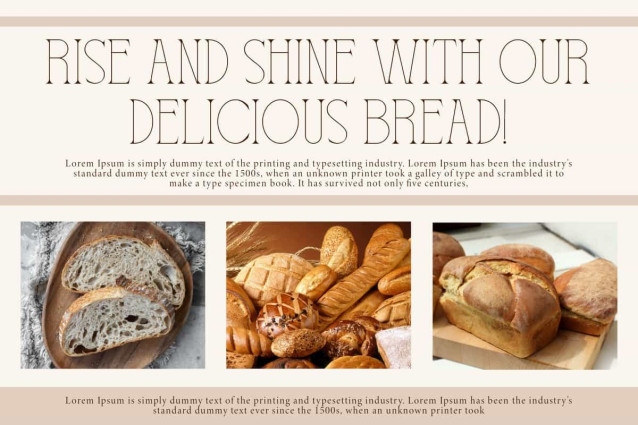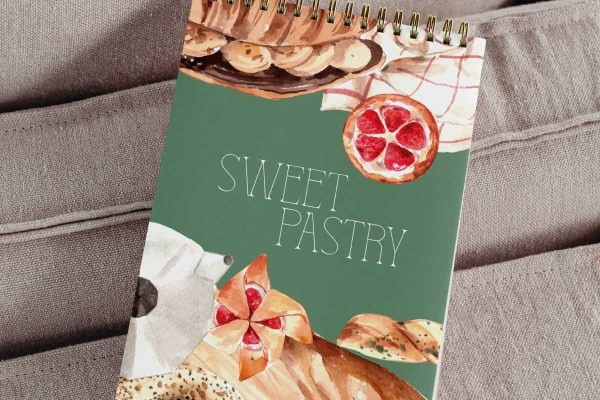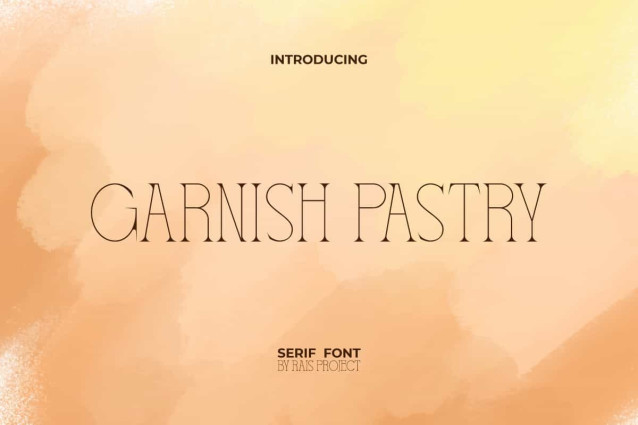
Garnish Pastry Font
Garnish Pastry Font is a unique and stylish serif display font, by RaisProject. This font has thin lines with distinctive Serif ends that are quite prominent so that it can be read clearly. It will be good for any designs, such as poster, signage, cover, menu, invitation, custom design, brand image, label, product packaging, quotes, stationery, web, and more!
Garnish Pastry Font includes a full set of Uppercase and Lowercase Letters, Numerals, Punctuation and Symbol. This minimalist font will be suitable for various industries, such as bakery and pastry cafe, fashion, accessories and jewelry, advertisement, event or wedding organizer, florist, homeware, perfume, photography, printing, publishing, real estate, etc.